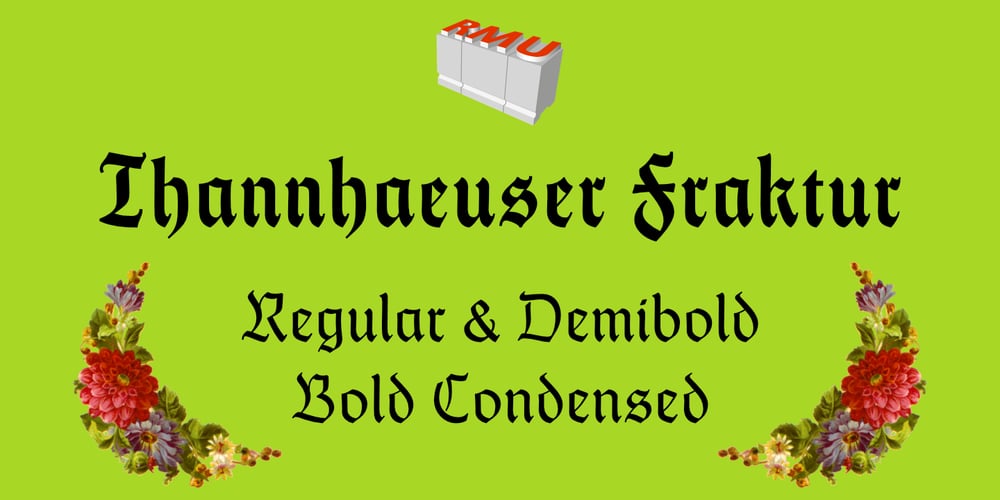
Thannhaeuser Fraktur
Thannhaeuser Fraktur font
Thannhaeuser Fraktur Font Family was designed by Ralph M. Unger and published by RMU. Thannhaeuser Fraktur contains 3 styles and family package options. A redesign of Typoart’s Thannhaeuser Fraktur. You can access the long s either by typing the integral sign [∫] or activating the OpenType feature historical forms.